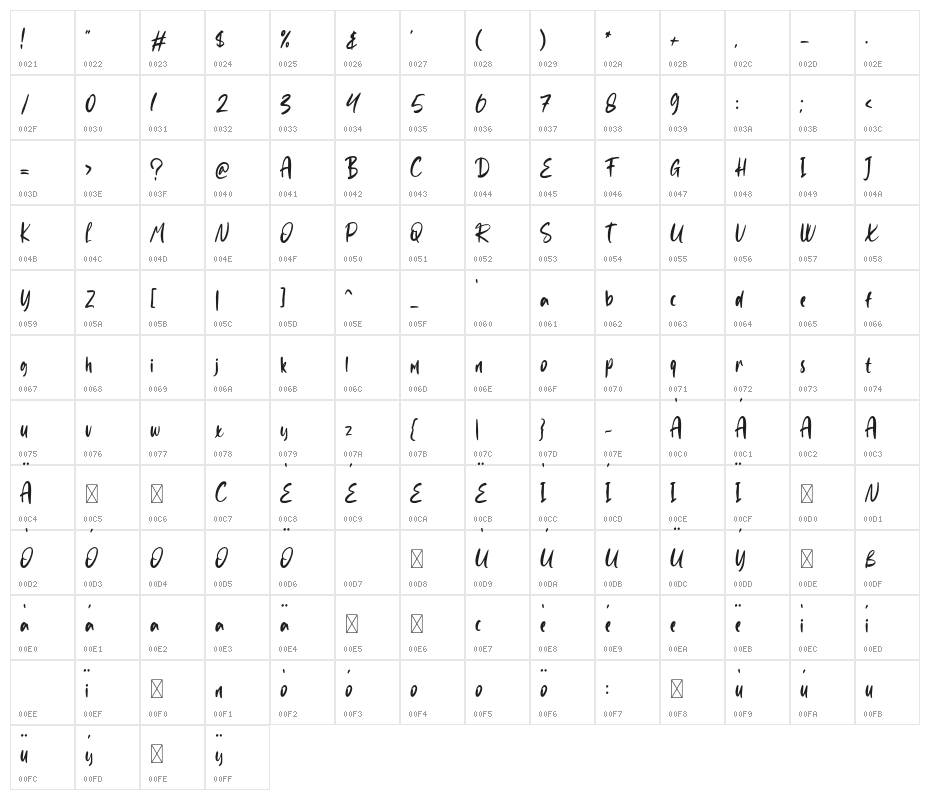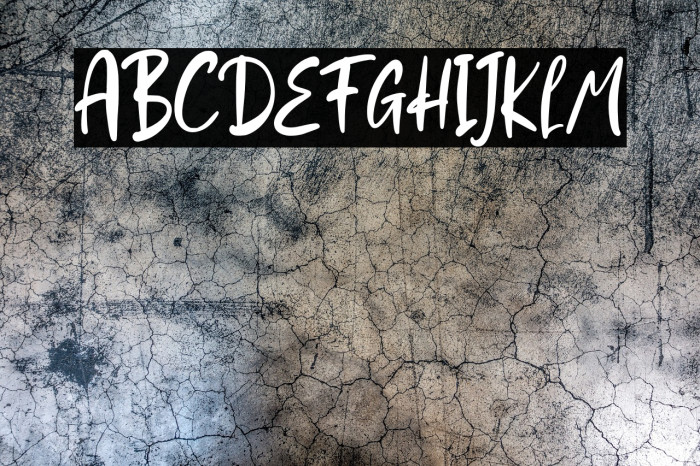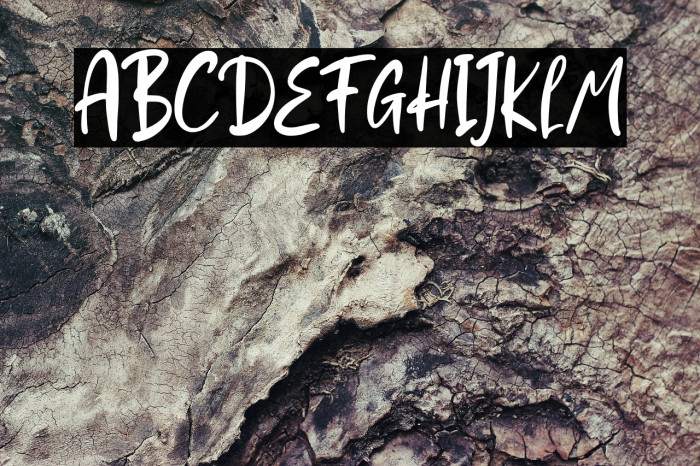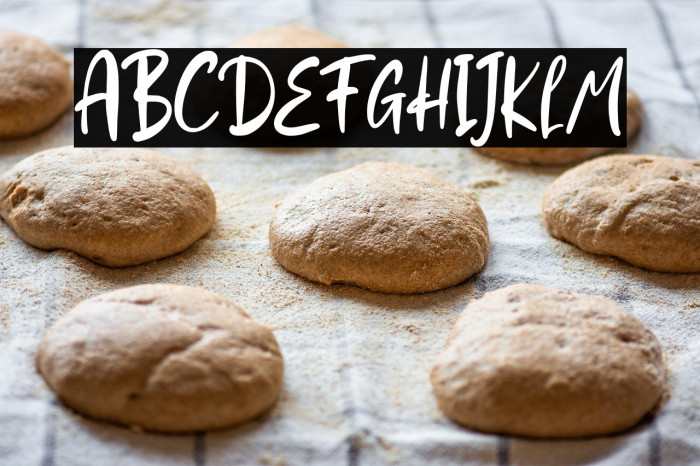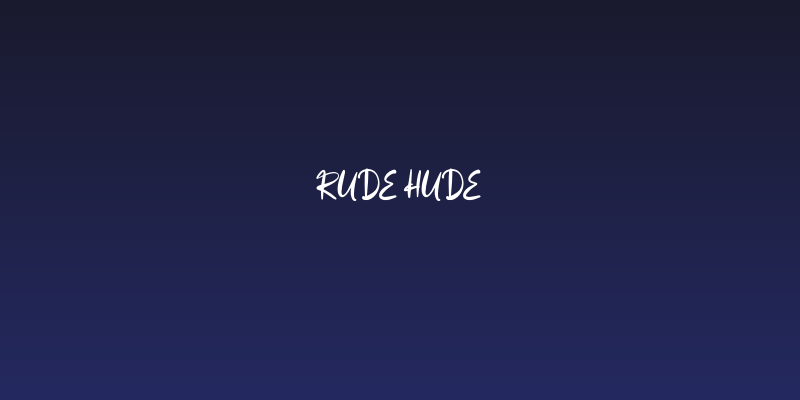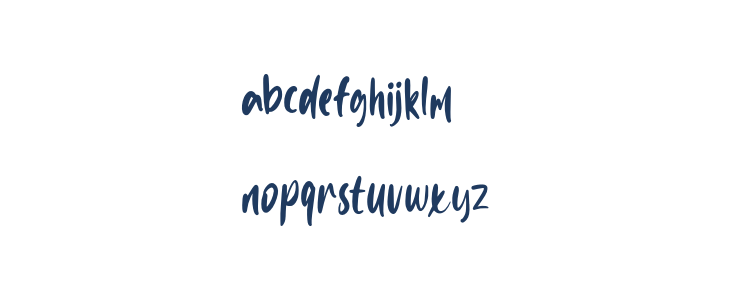
Rude Hude Font
Rude Hude Description
This font features a lively and energetic handwritten style, characterized by its fluid and dynamic strokes. The letters are slightly slanted, giving a sense of motion and informality. The uppercase letters are bold and expressive, while the lowercase letters maintain a consistent flow, enhancing readability. The numbers and special characters are crafted with the same playful touch, making them suitable for creative and informal designs. The overall appearance is modern and approachable, perfect for projects that require a personal and friendly tone.
| Use Case | Logos, Headlines, Informal Text |
| Proposed Projects | Ideal for greeting cards, social media graphics, personal branding, and playful event invitations. |